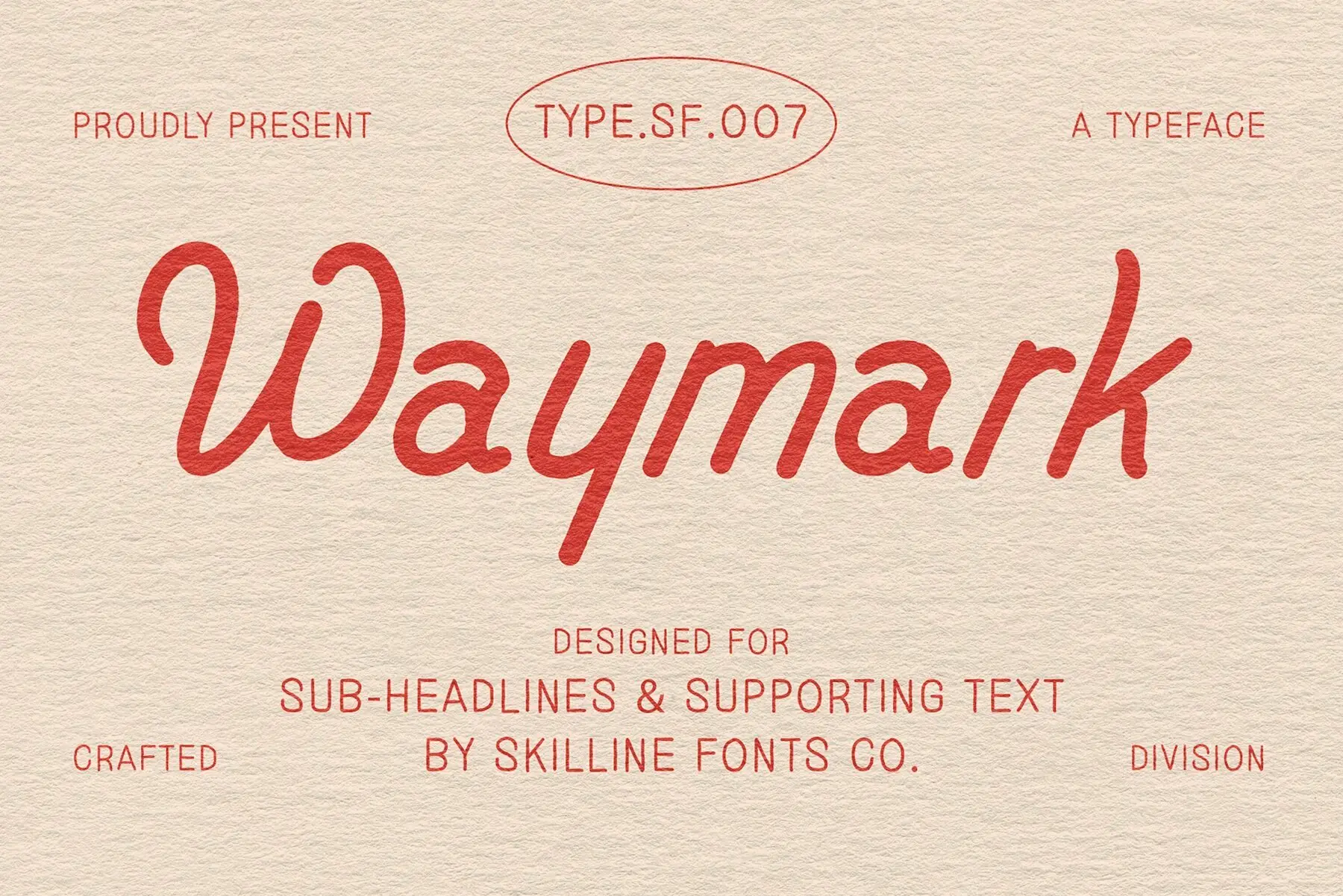
SFC Waymark
Waymark: Handwritten Script Font with Casual Elegance and Vintage Charm Designed for versatility, this typeface includes uppercase, lowercase, and balanced proportions that ensure readability without losing its handcrafted appeal. From sub-headlines and editorial layouts to packaging, apparel graphics, and logos, Waymark adds an approachable, stylish feel across both print and digital platforms. Ideal Applications for Waymark Branding and logo design with personal charm Editorial layouts and stylish sub-headlines Packaging and product design with handcrafted warmth Apparel graphics with elegant character Social media posts with timeless appeal
Waymark is a smooth handwritten script font that blends casual elegance with timeless vintage character. Featuring flowing strokes and a natural rhythm, it delivers a personal, authentic touch while maintaining clarity and refinement. Inspired by handwritten notes and classic signage, Waymark brings warmth and personality to any creative project.